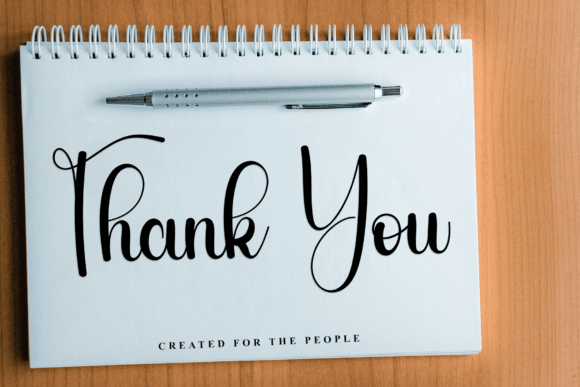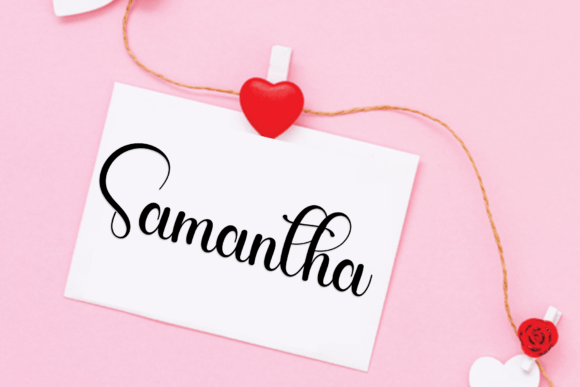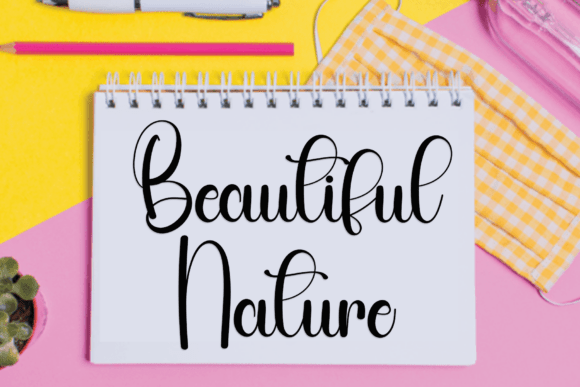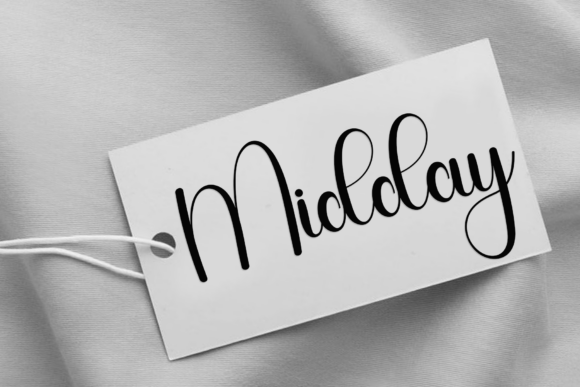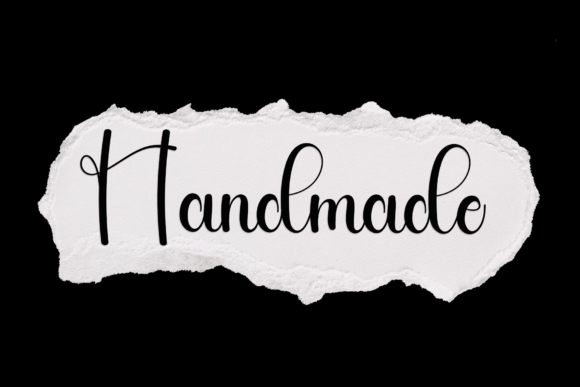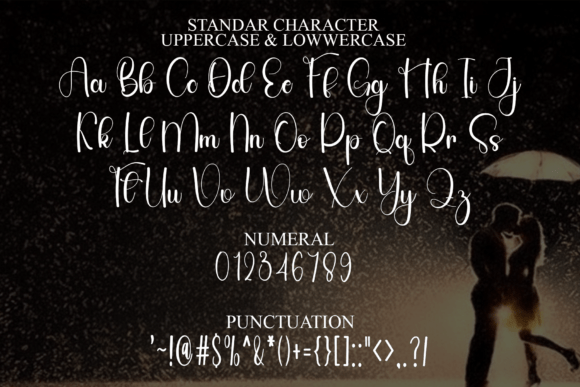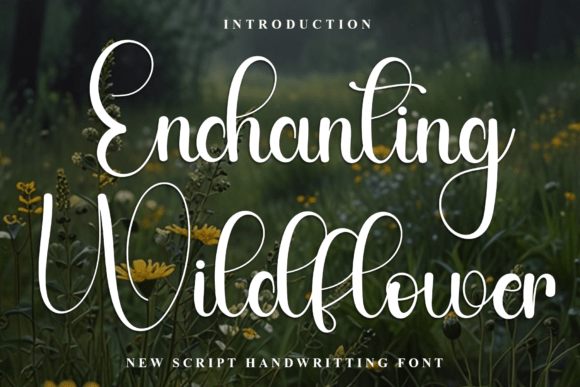
Introducing the Enchanting Wildflower Font: A Festive and Whimsical Typeface for the Holiday Season
The holiday season is upon us, and with it comes the desire to create festive and merry designs that capture the spirit of the season. For designers and crafters looking to add a touch of enchantment to their projects, the Enchanting Wildflower Font is the perfect solution. This beautiful and decorative typeface is specifically designed to bring a cheerful and nostalgic ambiance to your words, making it ideal for greeting cards, gift tags, and holiday-themed projects.
What Makes Enchanting Wildflower Font So Special?
The Enchanting Wildflower Font is a unique and whimsical typeface that stands out from the crowd. Its decorative elements and festive flair make it perfect for adding a touch of magic to your designs. With its intricate details and curly flourishes, this font is sure to transport your audience to a world of wonder and enchantment. Whether you’re creating holiday-themed projects, such as Christmas cards, Halloween invitations, or Easter gift tags, this font is sure to make your designs shine.
The Enchanting Wildflower Font is a versatile typeface that can be used by both designers and crafters. Its ease of use and flexibility make it perfect for a wide range of projects, from digital designs to handmade crafts. With this font, you can create stunning holiday-themed projects, such as:
• Greeting cards for Christmas, Halloween, Easter, and other holidays
• Gift tags and wrapping paper
• Holiday-themed invitations and party decorations
• Social media graphics and blog posts
Bringing a Cheerful and Nostalgic Ambiance to Your Words
The Enchanting Wildflower Font is designed to bring a cheerful and nostalgic ambiance to your words. Its whimsical and decorative elements evoke a sense of wonder and enchantment, making it perfect for holiday-themed projects. With this font, you can create designs that are both festive and memorable, capturing the spirit of the holiday season and leaving a lasting impression on your audience.
Let Your Typography Shine with the Magic of Enchanting Wildflower Font
With the Enchanting Wildflower Font, you can let your typography shine with the magic of this beautiful and festive typeface. Its unique and whimsical design makes it perfect for adding a touch of enchantment to your designs, while its ease of use and flexibility make it suitable for a wide range of projects. Whether you’re a designer or crafter, this font is sure to become a go-to in your collection.